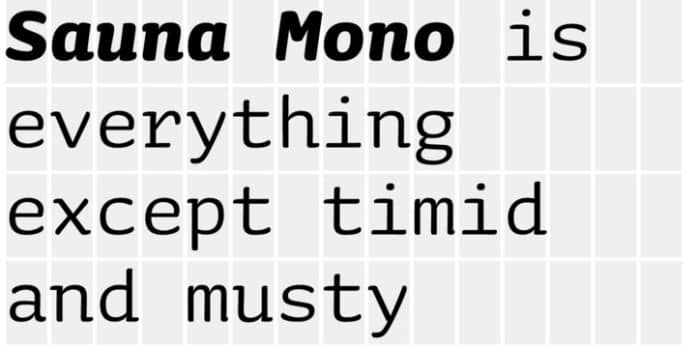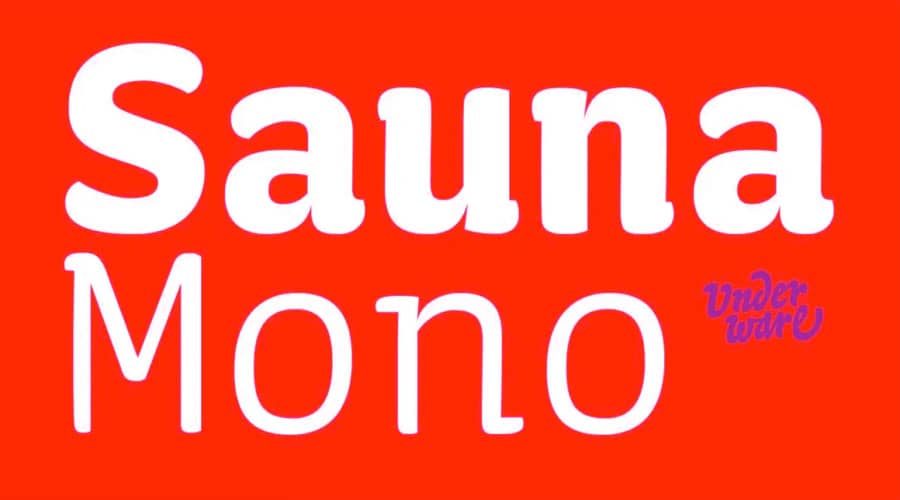
Sauna Mono
Sauna Mono Pro is a monospaced typeface with a unique personality. It has uppercase, lowercase, numeric, and some special characters and alternates. Sauna Mono is available in four weights: regular, italic, bold, and bold italic. This font is part of the family, which includes text and showcase fonts and multi-coloured dingbat fonts. The Font makes a total of font styles in the Sauna family to 15 in total. It includes Underware’s Latin Plus character set, which supports 219 languages. The Font continues to support up to 219 languages in Latin and other scripts, including Spanish, English, Portuguese, German, French, Turkish, Italian, Polish, Kurdish (Latin), Azerbaijani (Latin), Romanian, Dutch, Hungarian, Serbian (Latin), Czech, Kazakh (Latin), Swedish, Belarusian (Latin), Croatian, Finnish, Slovak, Danish, Lithuanian, Latvian, Slovenian, Irish, Estonian, Basque. It needed to extract the fonts from the ZIP or RAR file before installing Font.
Sauna Mono is ideal for logos, branding, invitations, stationery, wedding designs, greetings, stamps, postcards, covers, shirts, social media posts, and other applications. This Font good to develop a unique image, text with different types of colours, and text.
| Name | Sauna Mono |
| Style | Sans Serif |
| Designer | anthoine |